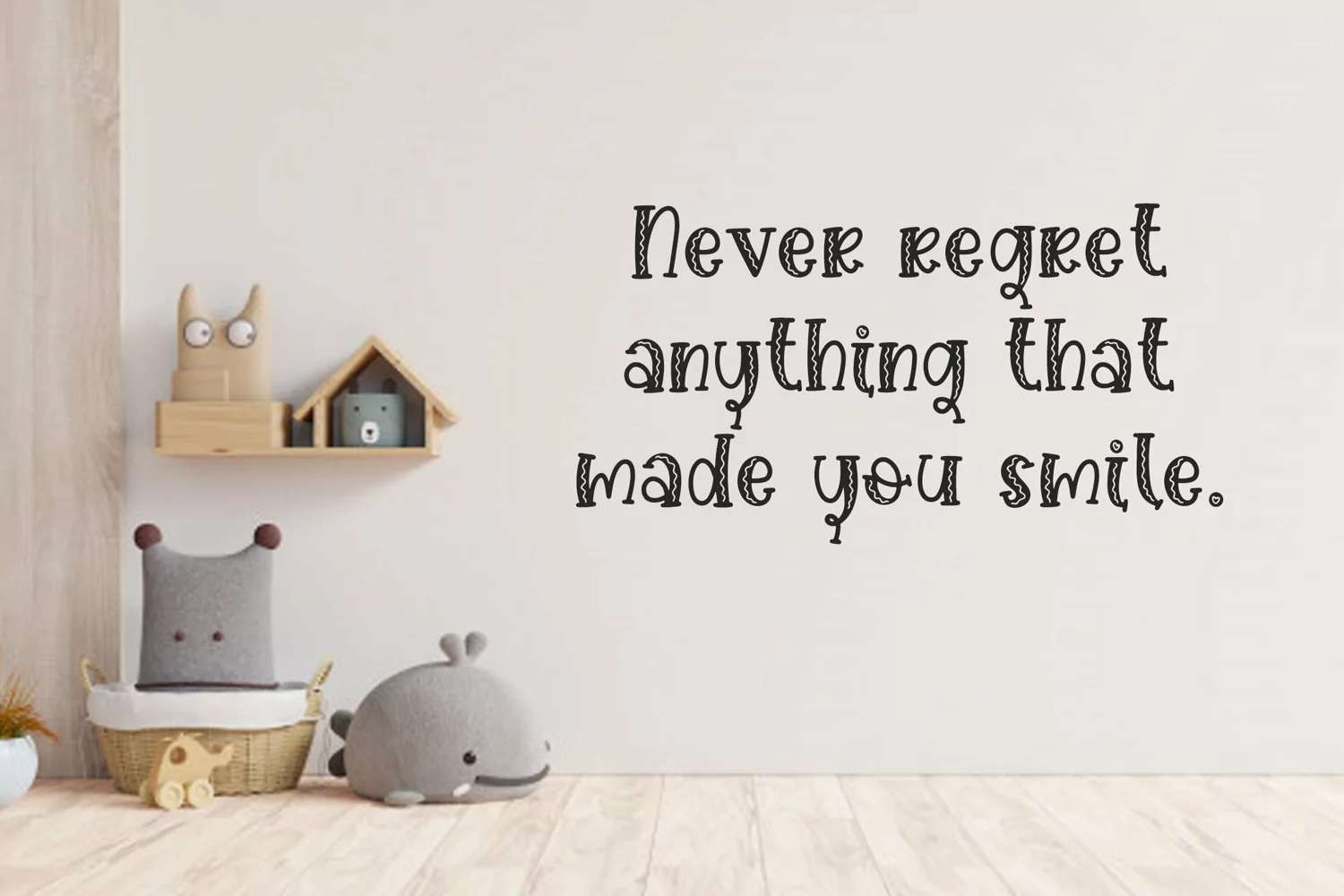
Creaty is a cute and quirky handwritten font. Sweet and playful, this typeface can elevate the look of any creation ranging from product packaging to business cards, and more!
Creaty
Creaty Line
Creaty Stairy
Creaty Wavy Line